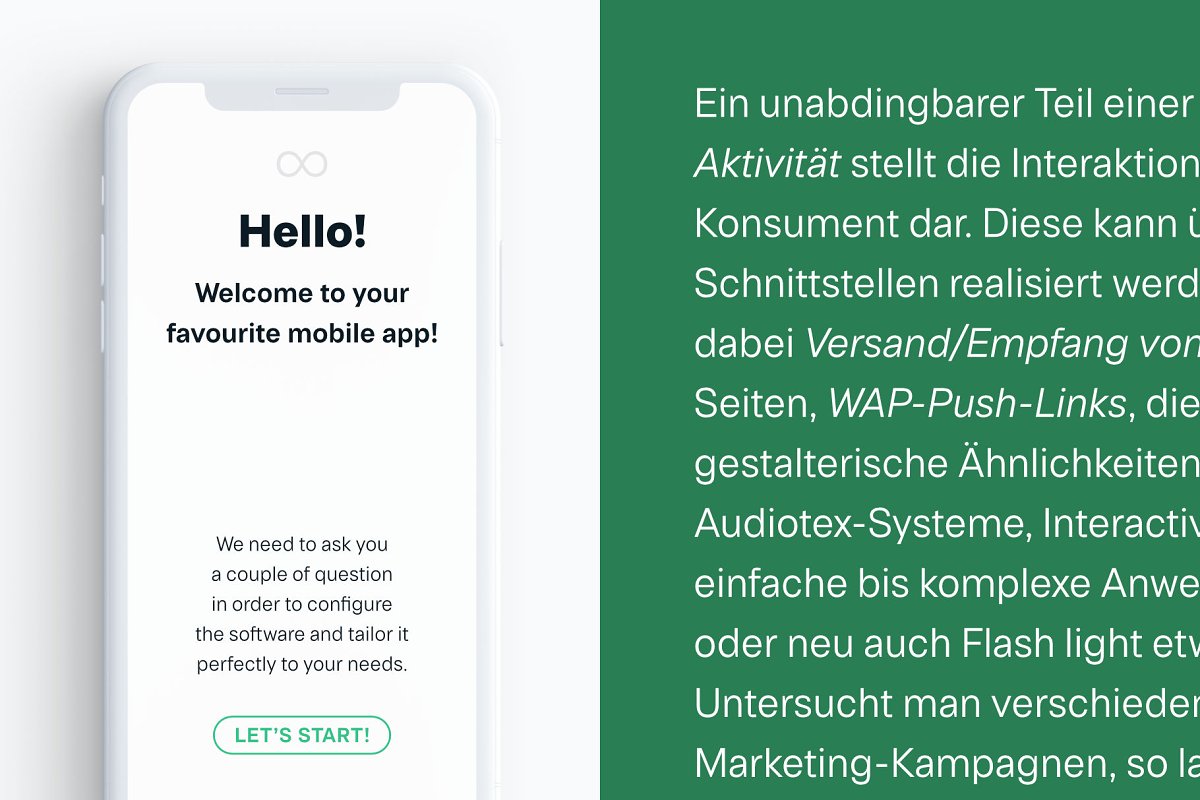
About the Axalp Grotesk Lite Font
Axalp Grotesk Lite™ is a Swiss style modernist sans serif type family characterized by the play between elegant rounded shapes and sharp angular details, It is minimal, legible, well balanced and charismatic, Its heavy weights deliver powerful yet friendly impact, Thin ones emanate elegance, fine lines and precision, Axalp Grotesk is an attractive contemporary alternative to the classics of Swiss Design School such as Akzidenz-Grotesk, Univers and Helvetica
It is bright, crisp, modern and friendly in character, The family has very versatile proportions and generous x-height allowing a successful use for user interfaces, all sorts of display and branding scenarios, as well as a paragraph text typeface, Contemporary minimalistic approach makes Axalp Grotesk an outstanding design tool for creating modern visual identities and user interfaces
A truly universal sans serif family where beautiful forms and proportion work together with careful spacing, kerning and hinting, Axalp Grotesk Lite features western latin language support, lining figures, ordinals, basic fractions and currency symbols